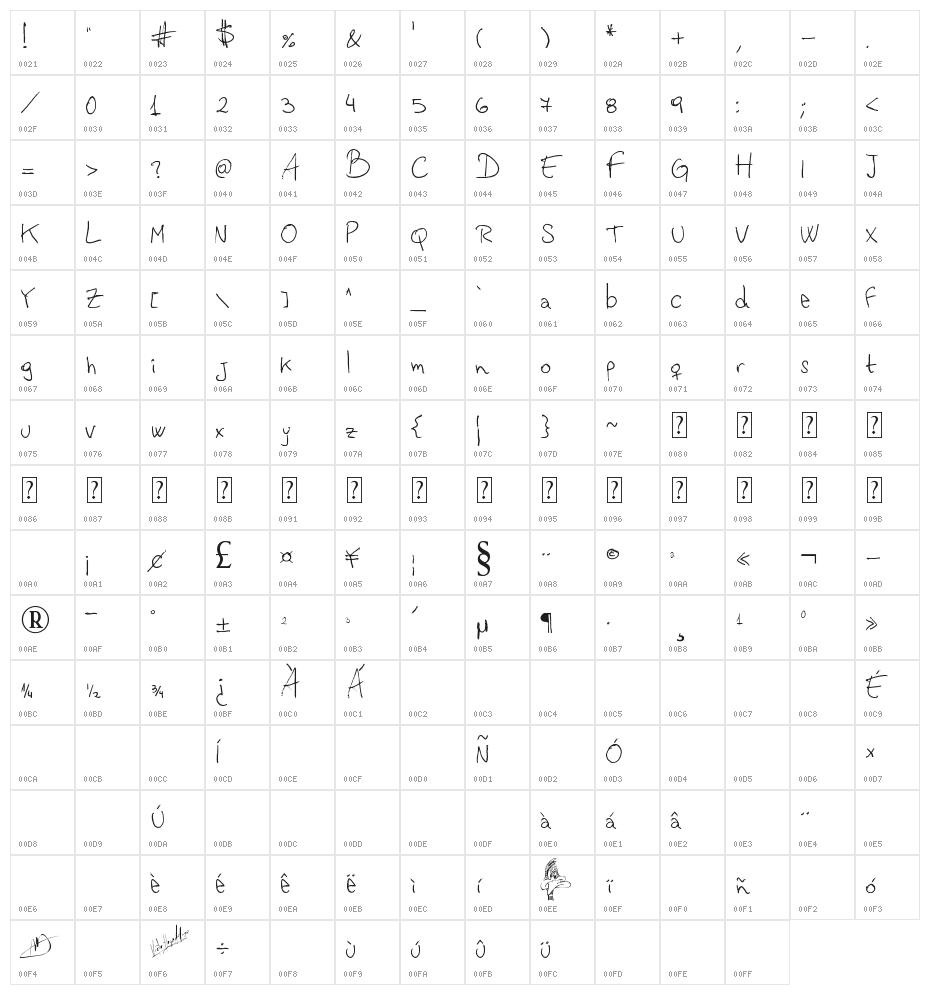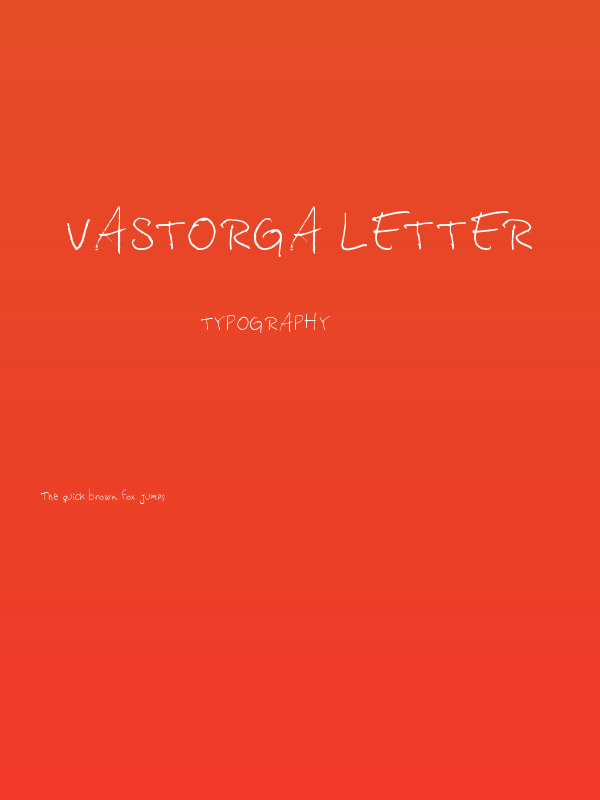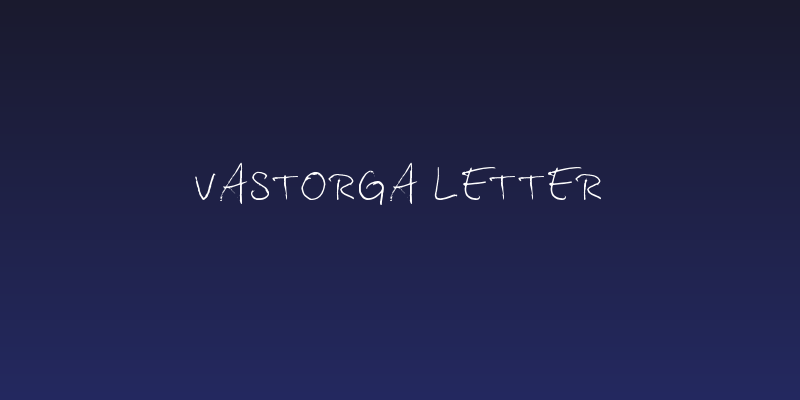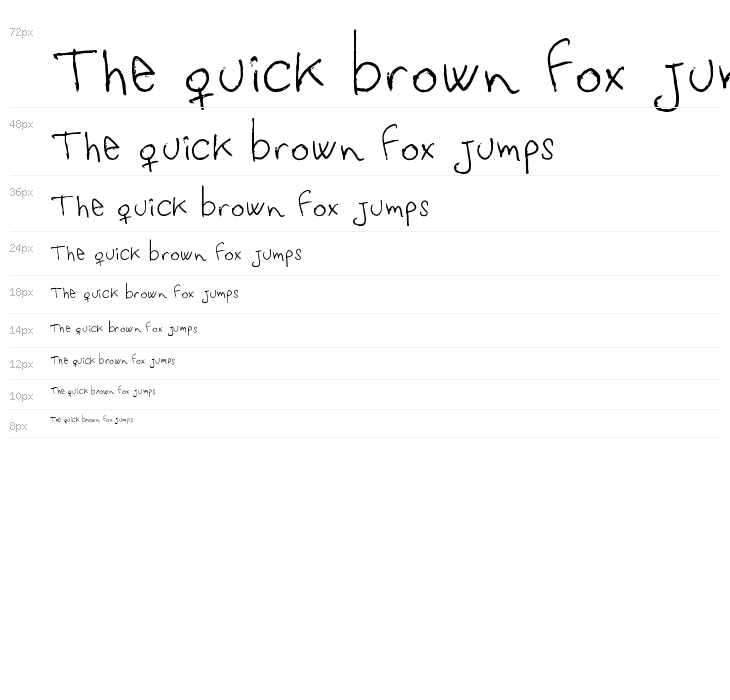
Vastorga Letter Font
| Stile generale | Casual, Playful |
| Caso d'uso | Greeting cards, Personal notes, Informal invitations |
| Progetti proposti | Ideal for greeting cards, personal notes, informal invitations, and creative projects that require a personal touch. |